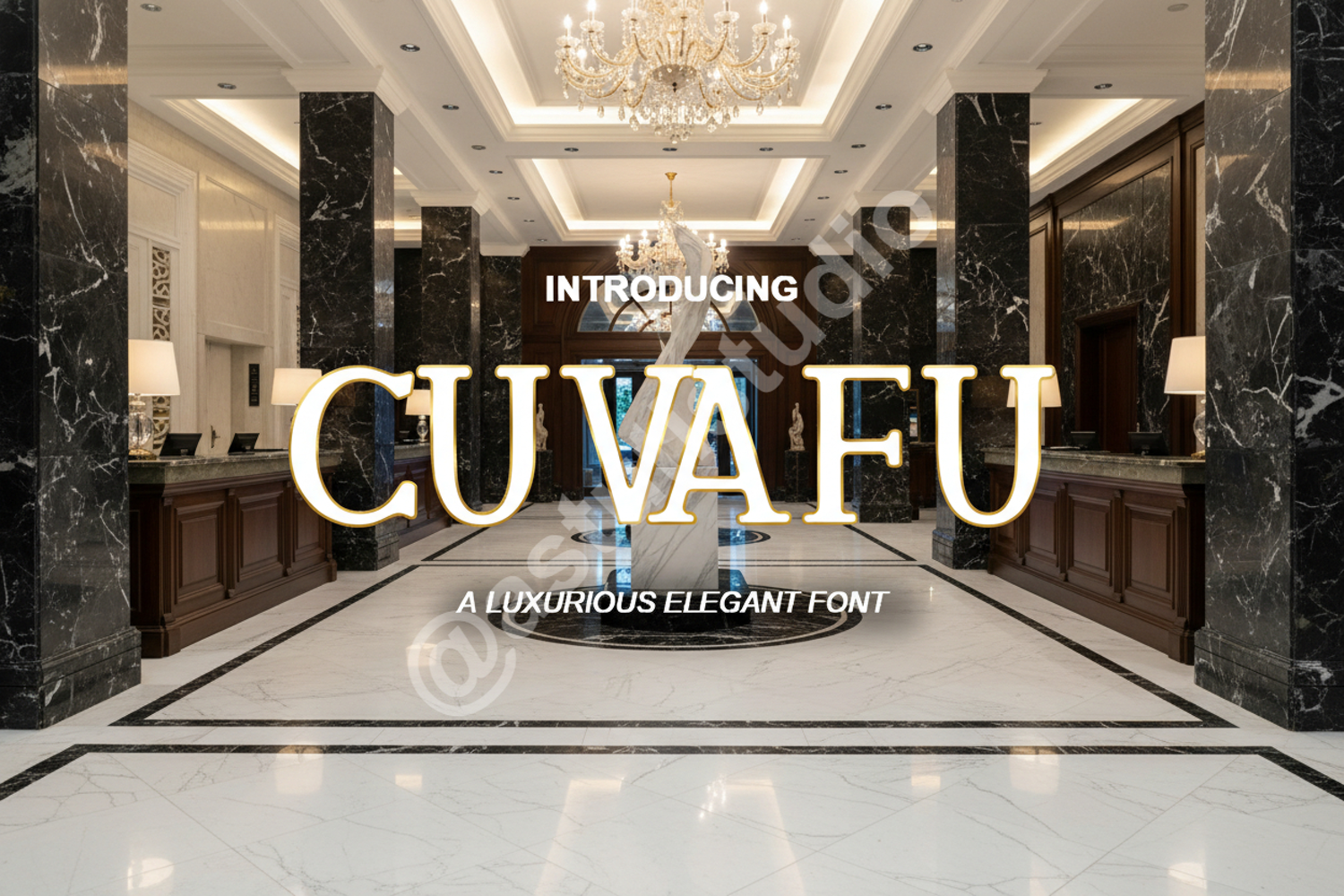
Cuvafu - Modern Minimalist Sans Serif
Cuvafu
Cuvafu is a premium sans-serif typeface meticulously crafted for designers who value clarity and modern elegance. With its clean lines and perfectly balanced proportions, this font offers a sophisticated aesthetic that adapts seamlessly to any creative environment. Whether you are building a high-end brand or designing a sleek user interface, Cuvafu provides the professional edge your project deserves.
- Branding and Identity: Create memorable logos and corporate stationery.
- Editorial Design: Perfect for magazine layouts, book covers, and headers.
- Digital Marketing: Elevate your social media graphics and web banners.
- Minimalist Posters: High legibility for large-scale print materials.
- UI/UX Design: Clean and readable for mobile applications and websites.